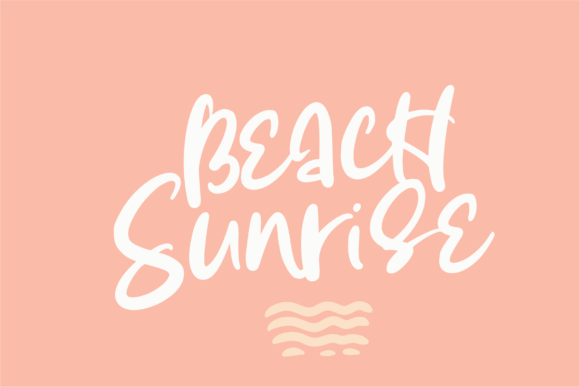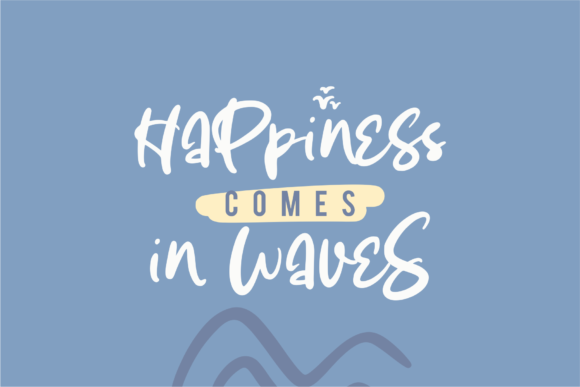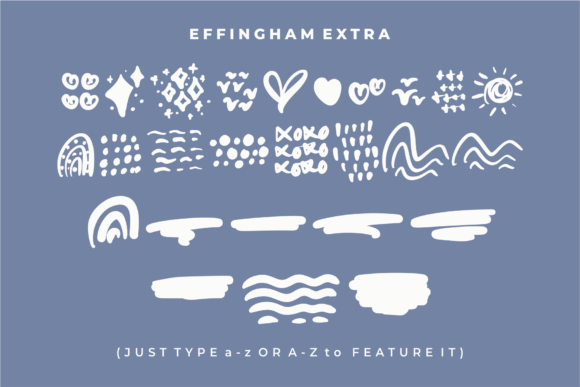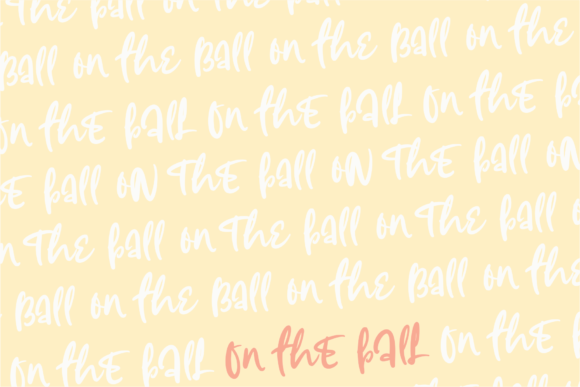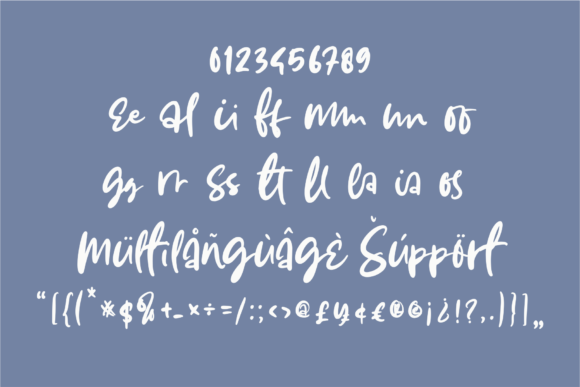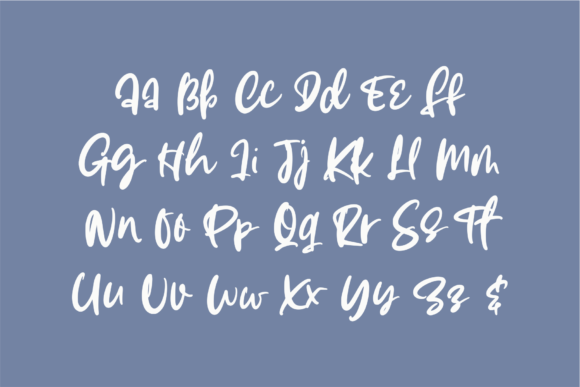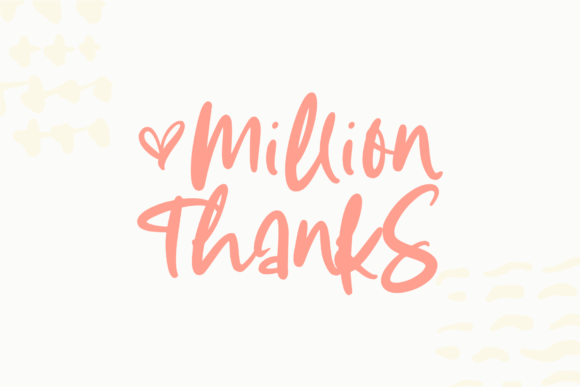
Effingham Font
About Effingham Font
Effingham is a casual handwritten font. It features beautiful extras that will brighten up your projects! Its casual charm makes it appear wonderfully down-to-earth, readable and, ultimately, incredibly versatile. Effingham will look outstanding in any context, whether it’s being used on busy backgrounds or as a standalone headline!